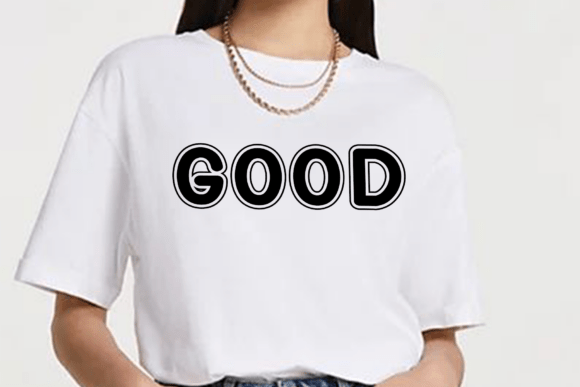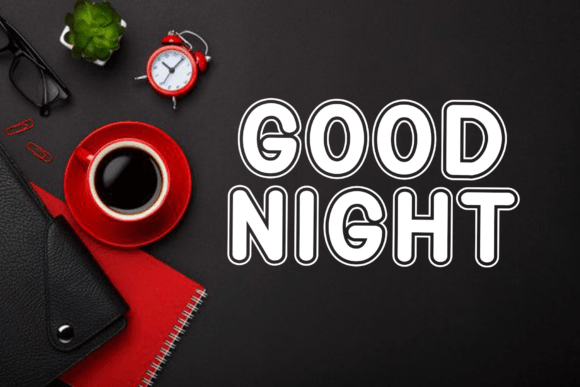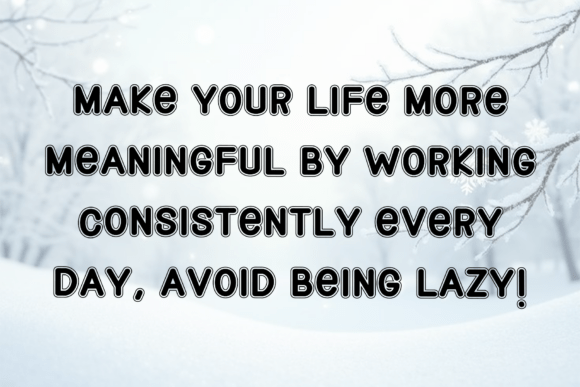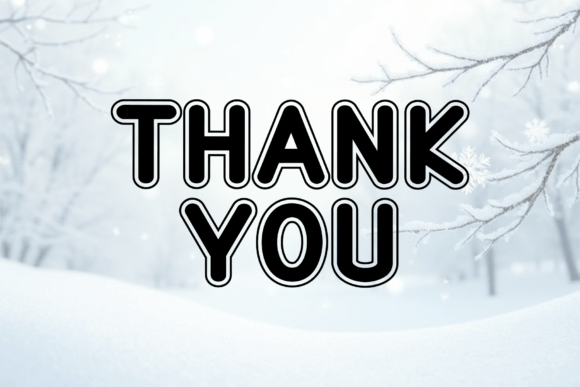
Introduction to Snow Outline Font
As a designer, there’s nothing quite like the thrill of bringing a new creative project to life. You’re brainstorming ideas, experimenting with different colors and textures, and searching for the perfect font to tie everything together. And that’s where the Snow Outline Font comes in – a stunning, modern display font that’s sure to elevate your design to the next level.
With its clean shapes, soft edges, and well-balanced letterforms, the Snow Outline Font is the perfect addition to any design resource. Whether you’re working on a poster, branding, packaging, or social media graphics, this font adds a fresh and friendly touch that’s hard to resist. And the best part? It’s incredibly versatile, making it a valuable asset for any designer looking to add some personality to their high-quality designs.
Key Features of Snow Outline Font
- Unique, hand-drawn design for a creative project or design resource
- Perfect for adding a touch of winter wonderland magic to your design
Honest Review: Snow Outline Font
As a designer, I was excited to try out the Snow Outline Font for my latest creative project. Overall, I was pleased with the results.
- High quality design: The Snow Outline Font has a crisp and clean design that looks great on a transparent background.
- Great for creative projects: The font is perfect for any project that requires a unique and stylish look.
- Limited customization options: While the font itself is great, I would have liked to see more customization options available.
- Not suitable for all projects: The Snow Outline Font may not be the best choice for projects that require a more formal or traditional look.
Overall, I was impressed with the Snow Outline Font and would definitely consider using it for future design projects. It’s a great resource for designers who need a unique and stylish font for their creative project.
Snow Outline Font: A Design Resource for Creative Projects
Tips for Getting the Most Out of the Snow Outline Font
To get the most out of the Snow Outline Font, experiment with different font sizes, colors, and effects. You can also combine the font with other design elements, such as images and graphics, to create a unique and eye-catching design.
Common Use Cases for the Snow Outline Font
The Snow Outline Font is commonly used in creative projects, such as graphic design, digital art, and typography. It’s also a great resource for designers who want to add a touch of elegance and sophistication to their designs.